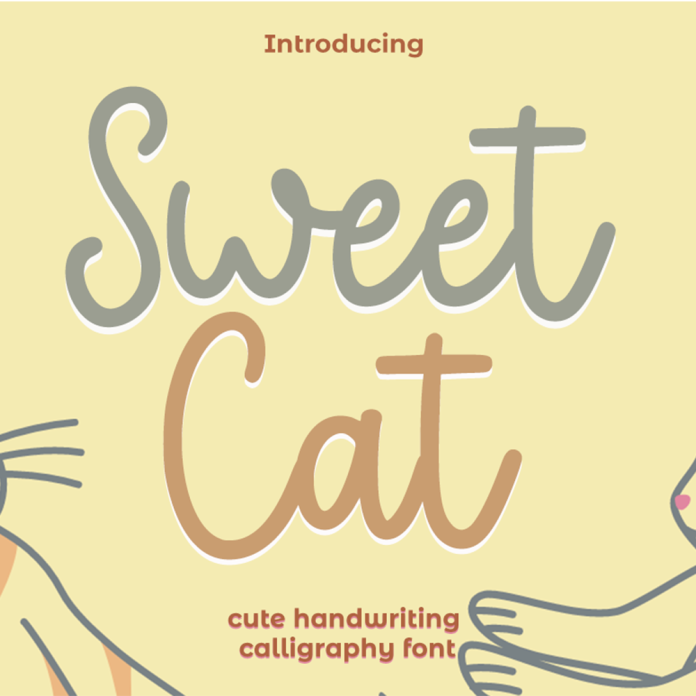
Sweet Cat is a whimsical and playful script font with decorative elements inspired by a cat's graceful movements. Its elegant swirls and curves give it a charming and unique look perfect for adding a touch of fun to invitations, greeting cards, and branding materials.